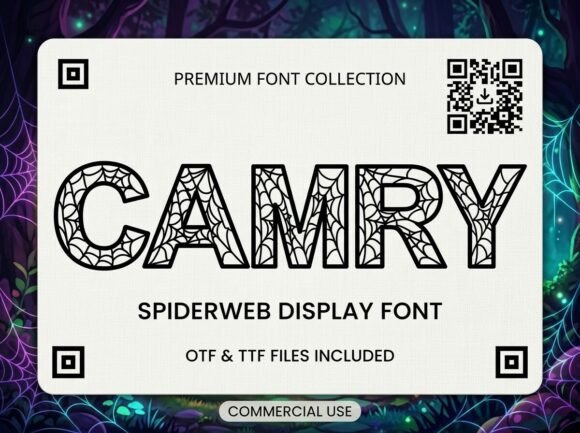
The Creepy Charm of Camry Font: A Designer’s Delight
I still remember the design project that led me to discover Camry Font. I was working on a Halloween event branding campaign, and my client wanted a font that would capture the essence of the spooky season. I scoured the internet, tried out countless fonts, but none seemed to fit the bill. That was until I stumbled upon Camry Font. Its bold, geometric letterforms and intricate spiderweb patterns instantly caught my attention. I knew right then and there that I had found the perfect font for the job.
Unpacking the Magic of Camry Font
Camry Font is a captivating display typeface that exudes a “spooky-and-intricate” soul. Its bold, geometric letterforms are filled with a dense tapestry of rhythmic spiderweb patterns, all contained within a clean, high-contrast outline. This striking graphic weight and eerie personality make it the premier choice for independent Halloween event branding, dark fantasy book covers, themed escape room signage, and high-impact “wicked-and-wonderful” social media headers.
My Honest Review of Camry Font
• ✨ Unique and captivating design that’s sure to turn heads
• âś… High-contrast outline that adds depth and dimension to any design
• âś… Bold, geometric letterforms that exude confidence and sophistication
• âś… Intricate spiderweb patterns that add a touch of whimsy and intrigue
While Camry Font is an exceptional design, it’s not without its quirks. For instance, ⚠️ the font may not be suitable for body text due to its bold and intricate design. Additionally, 🤔 some users may find the font’s unique features challenging to work with, especially if they’re not familiar with OpenType features and glyphs.
One of the standout features of Camry Font is its extensive range of OpenType features and glyphs. These features allow you to customize the font to suit your design needs, from adjusting the font’s weight and style to adding intricate details and flourishes.
The Backstory of Camry Font
According to the font’s designer, Camry Font was inspired by the intricate patterns and bold geometric shapes found in spiderwebs. The designer wanted to create a font that captured the essence of the spooky season, while also showcasing the beauty and intricacy of these natural wonders.
Q: What is Camry Font?
A: Camry Font is a captivating display typeface that features bold, geometric letterforms filled with intricate spiderweb patterns.
Q: What is Camry Font best used for?
A: Camry Font is best used for independent Halloween event branding, dark fantasy book covers, themed escape room signage, and high-impact “wicked-and-wonderful” social media headers.
Q: Can I use Camry Font for body text?
A: While Camry Font is an exceptional design, it’s not recommended for body text due to its bold and intricate design.
Q: Is Camry Font easy to read?
A: Camry Font is a display font, and as such, it’s designed to be eye-catching rather than easy to read. However, the font’s clean and high-contrast outline makes it more legible than you might expect.